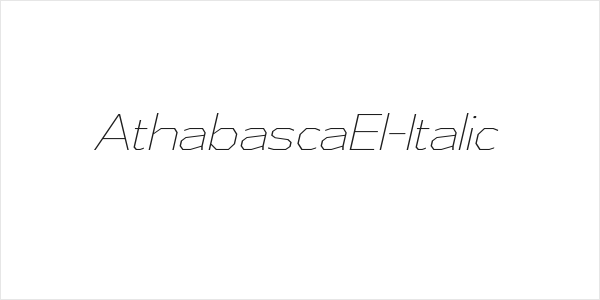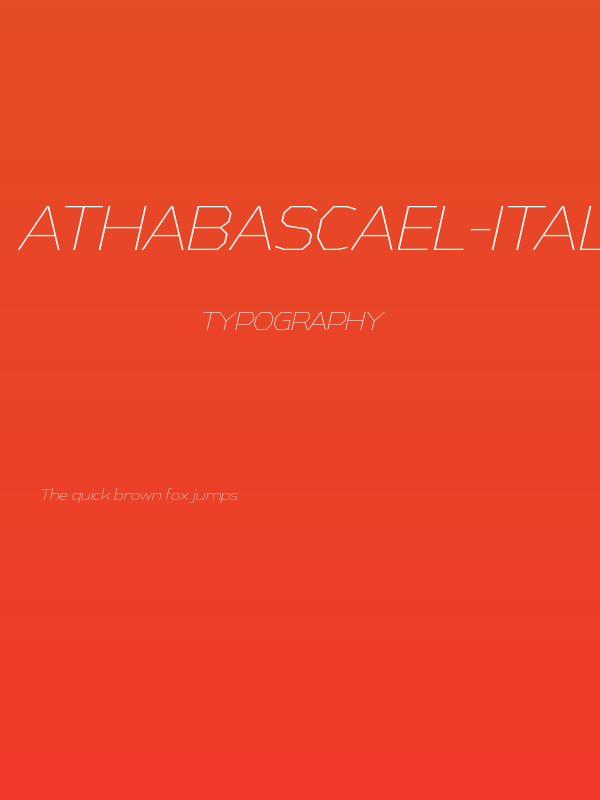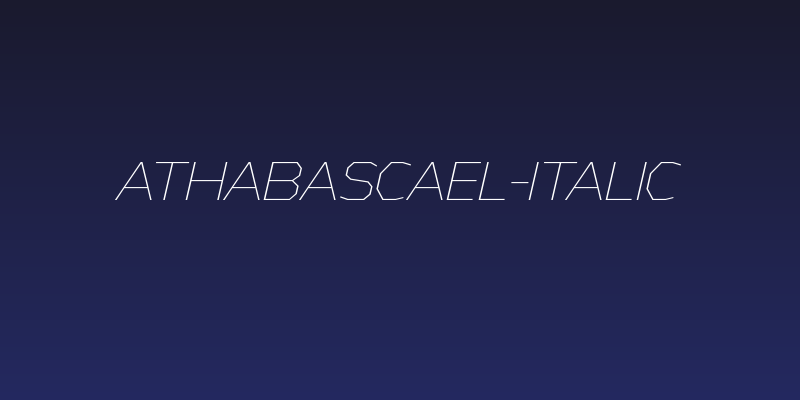
AthabascaEl-Italic Font
AthabascaEl-Italic Description
This font features a geometric and angular design, characterized by its sharp edges and linear forms. The letters are italicized, giving a sense of motion and dynamism. The uppercase and lowercase letters maintain a consistent style, with a modern and futuristic appearance. The numbers and special characters follow the same angular aesthetic, ensuring uniformity across all glyphs. The font's unique style makes it stand out, suitable for projects that require a contemporary and edgy look.
| Proposed Projects | Ideal for tech-related branding, futuristic posters, modern art designs, and innovative product packaging. |